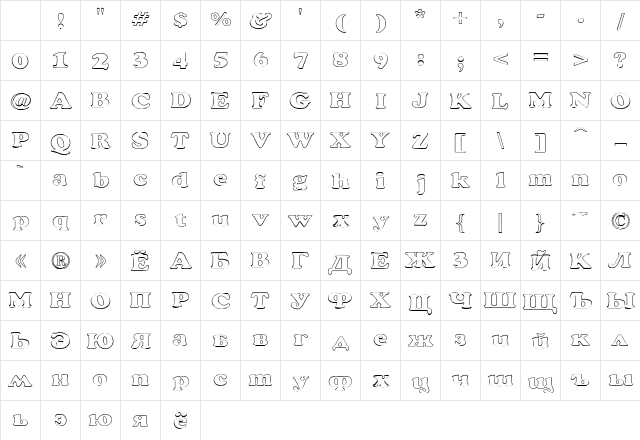
Complete Rockletter Transparent Regular glyph index. Displaying only characters natively supported by Rockletter Transparent Regular font.
Rockletter Transparent is a composed and adaptable typeface that performs quietly and consistently across a wide range of design contexts.